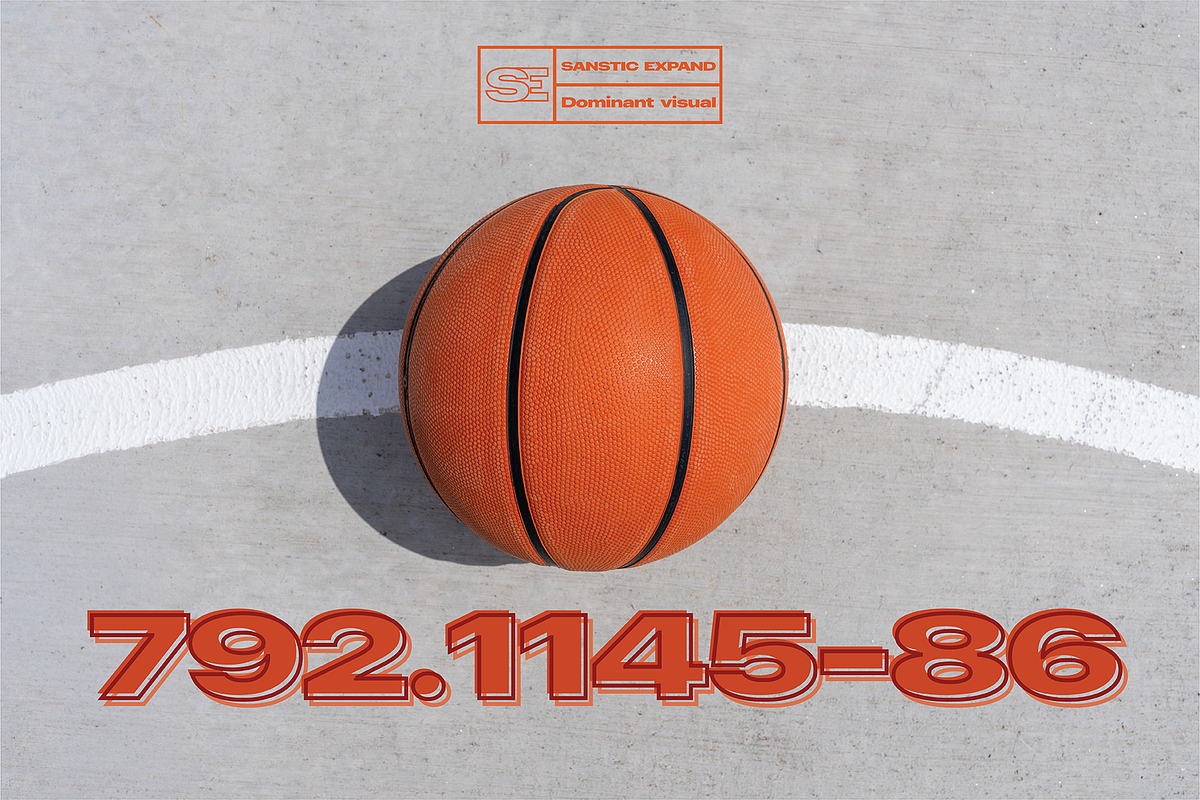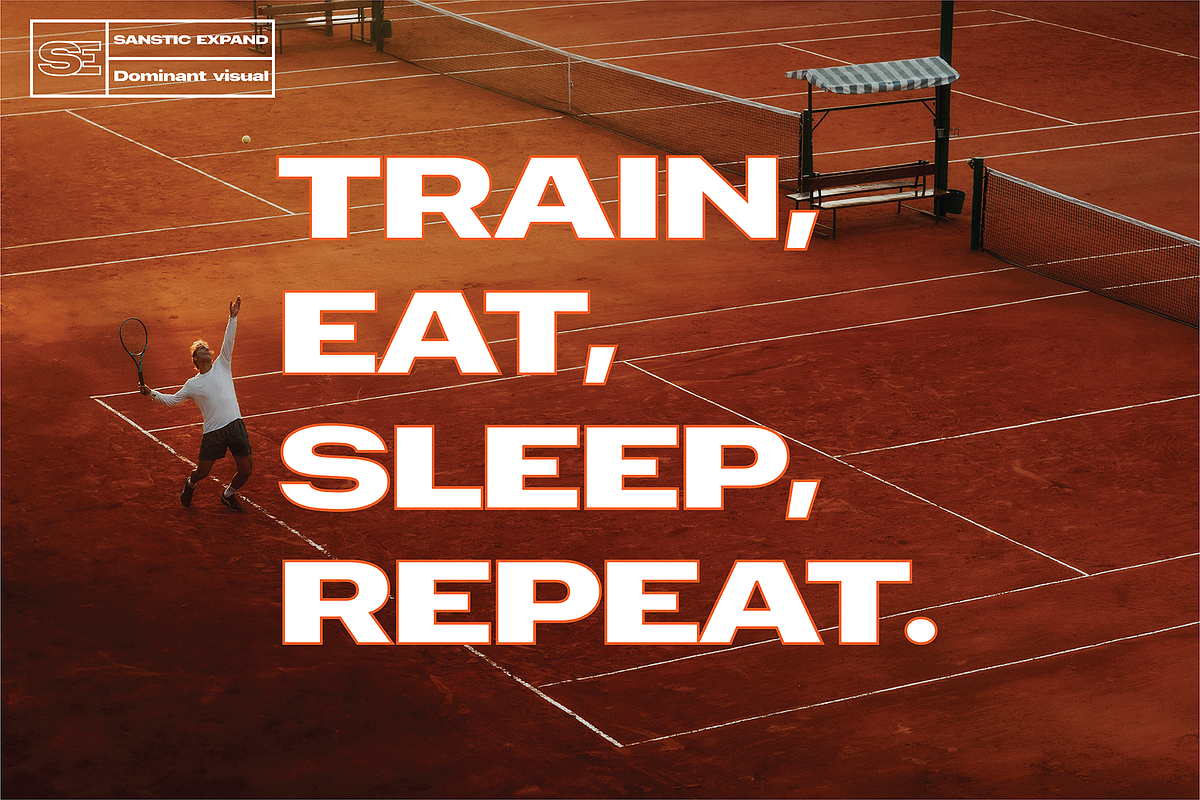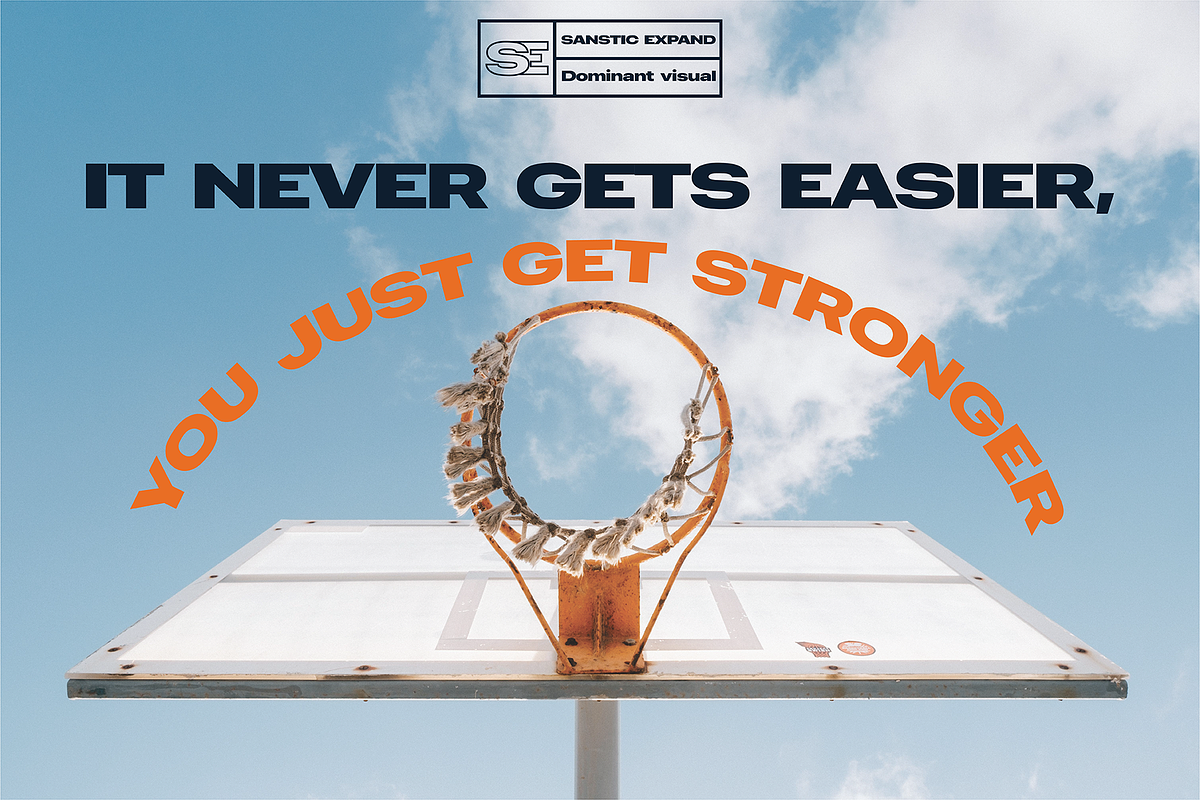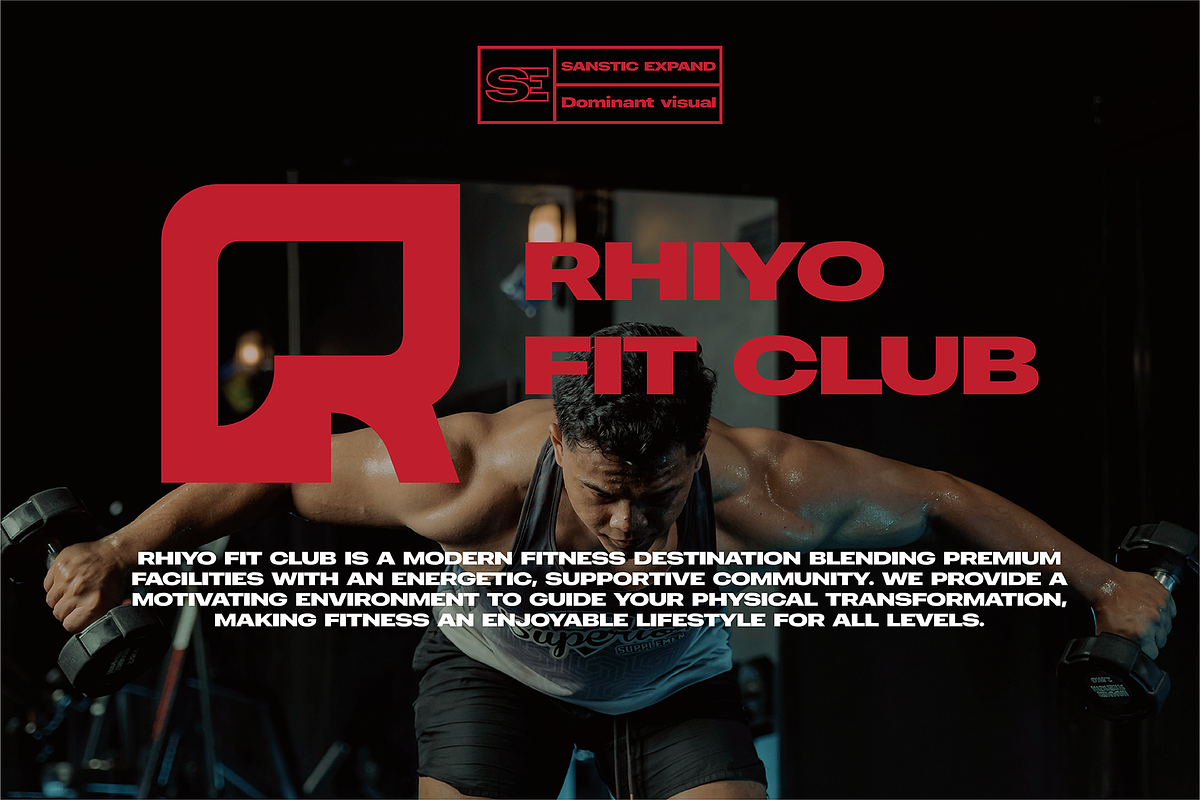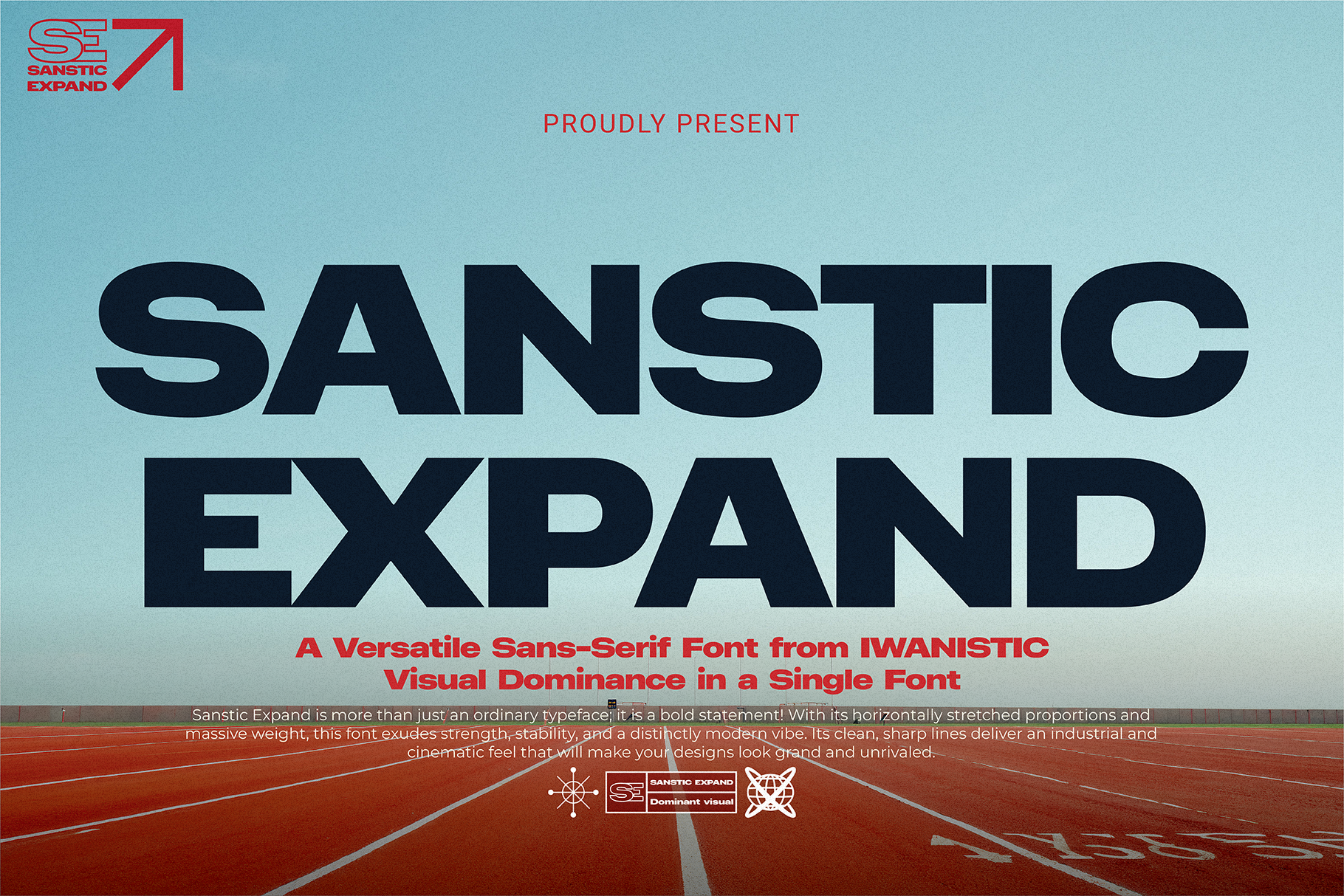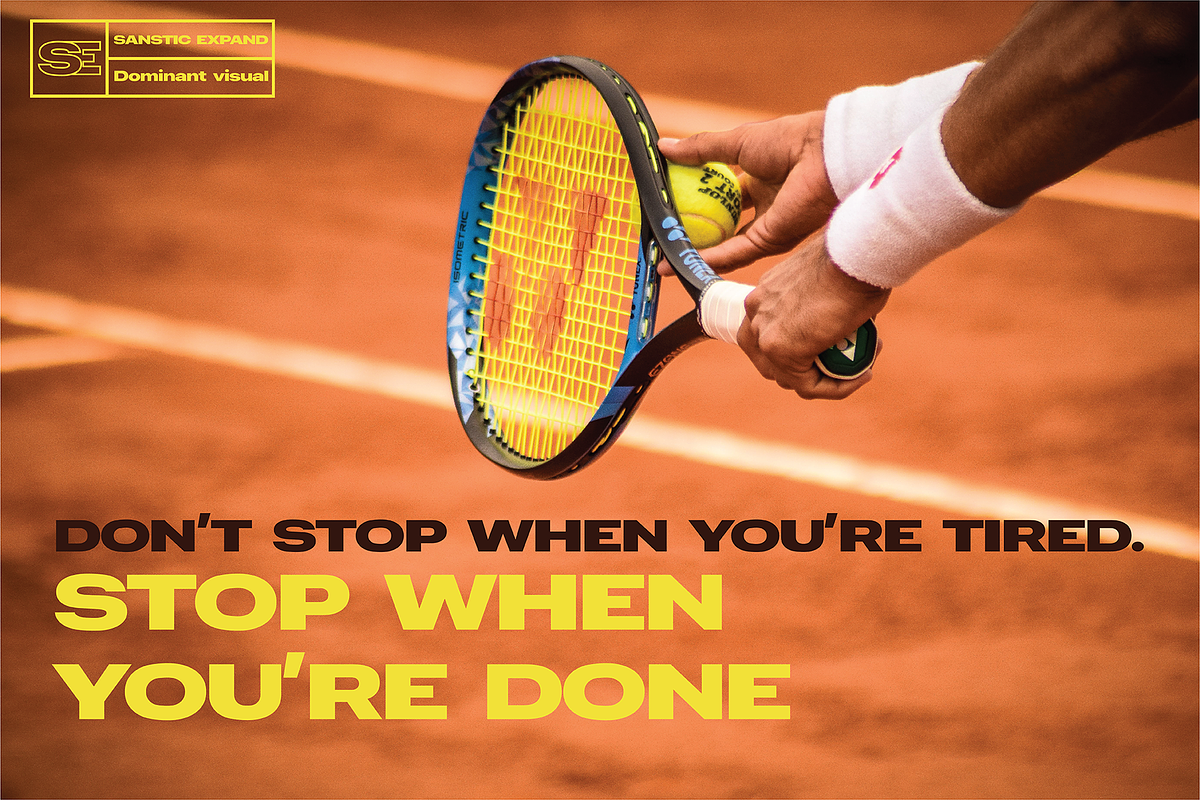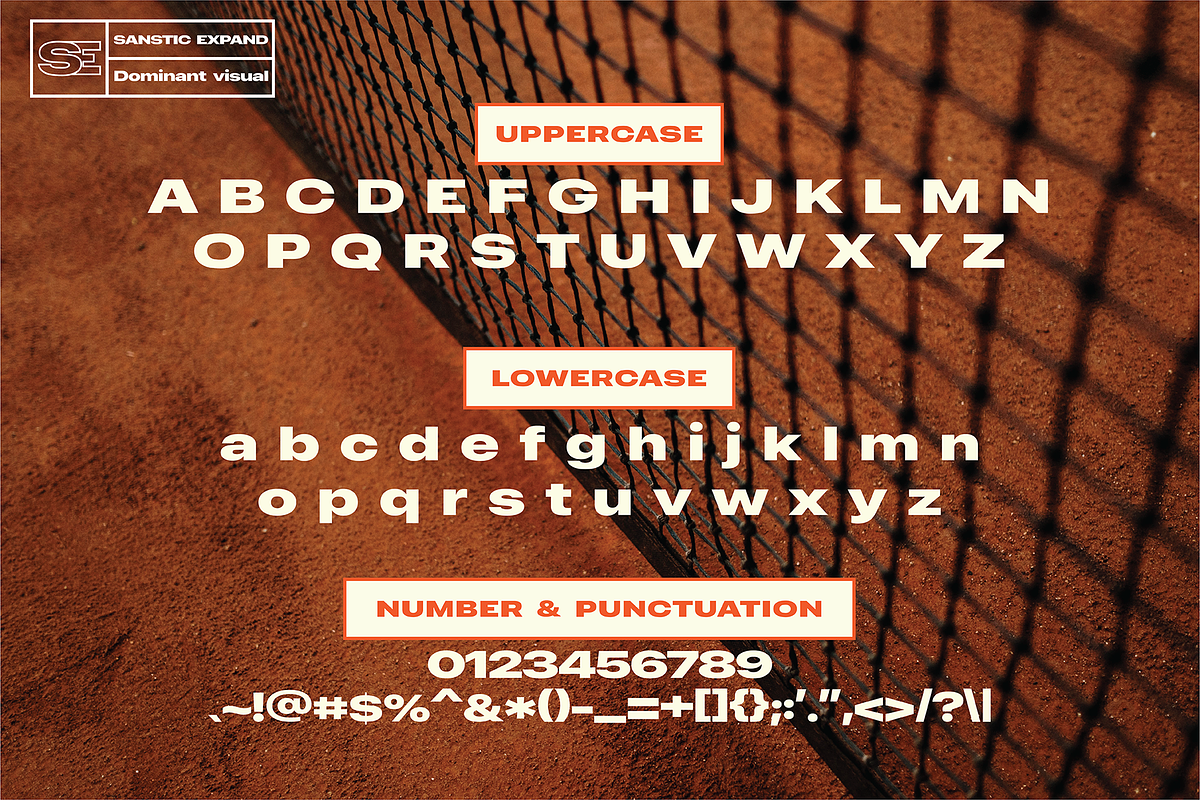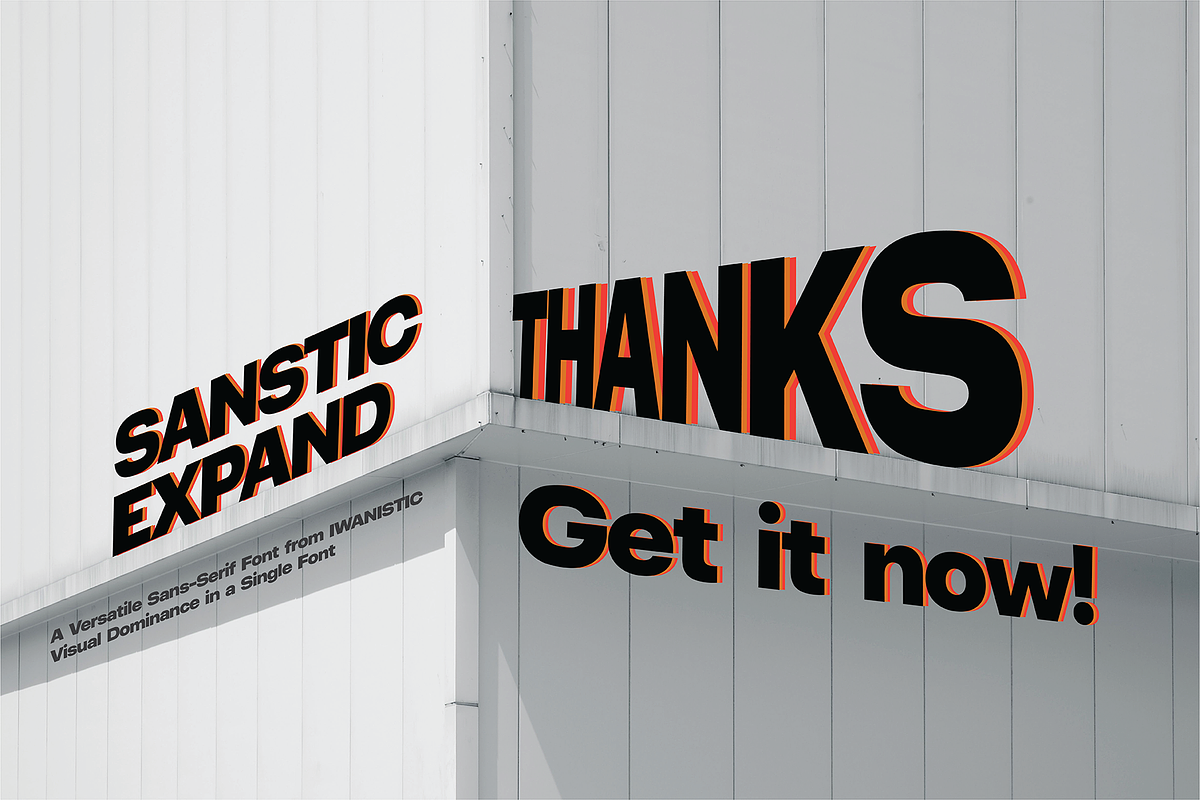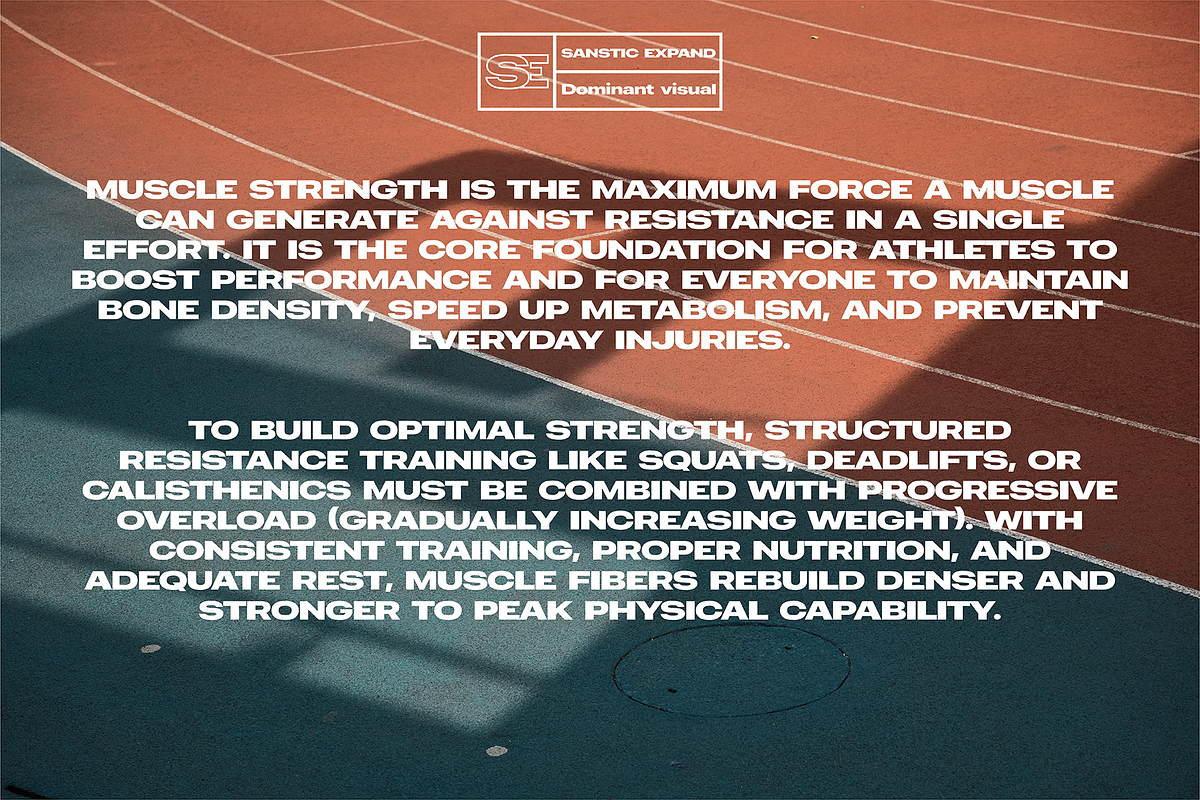
SANSTIC EXPAND - Modern Display Font
Sanstic Expand is more than just an ordinary typeface; it is a bold statement! With its horizontally stretched proportions and massive weight, this font exudes strength, stability, and a distinctly modern vibe. Its clean, sharp lines deliver an industrial and cinematic feel that will make your designs look grand and unrivaled.
Make your audience stop scrolling. Sanstic Expand is an ultra-bold, extended sans-serif font designed for one purpose: to grab attention instantly.
Characteristics of SANSTIC EXPAND:
Bold and Dominant: Its massive weight exudes an air of authority, boldness, and solidity, instantly commanding the attention of anyone who sees it.
Modern and Industrial: Sharp geometry and decisive forms create a contemporary feel closely linked to themes of sports, technology, architecture, or industrial design.
Stable and Solid: Thanks to its horizontally expanded form, this typeface creates an illusion of strong visual stability, making it appear incredibly solid and grounded.
Cinematic and Impactful: Such proportions often yield a dramatic aesthetic, making it an ideal choice for headlines on sci-fi or action movie posters, as well as in urban-style editorial layouts.